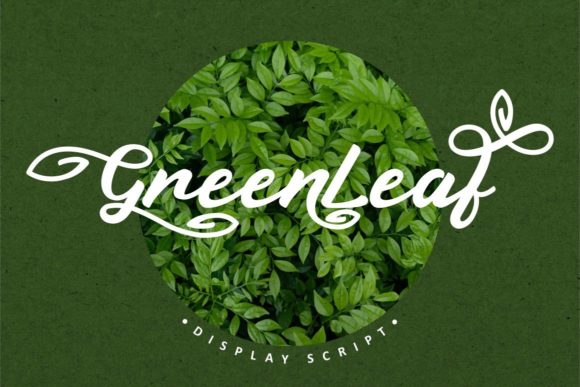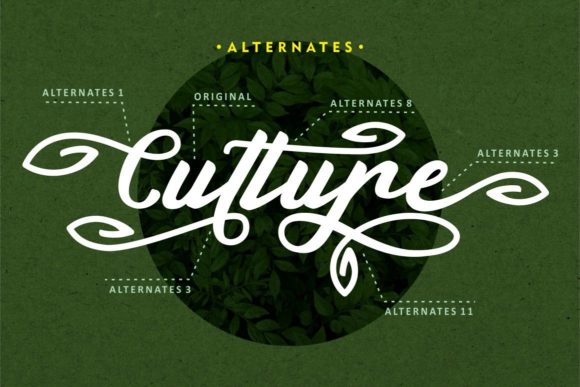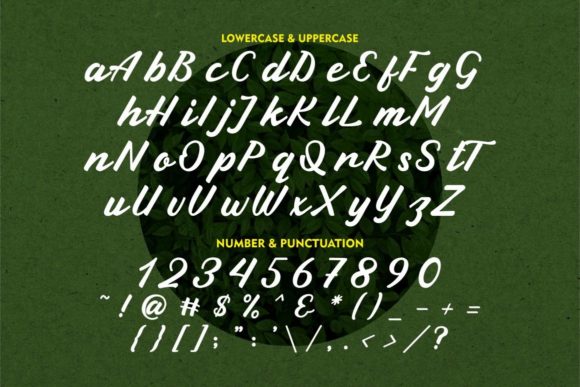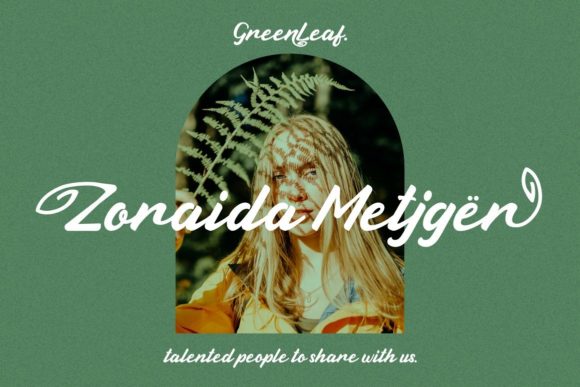
About Green Leaf Font
Green Leaf is an enchanting handwritten font. This versatile script font has a wide spectrum of applications ranging from greeting cards to headlines. It is PUA encoded which means you can access all of the amazing glyphs and ligatures with ease!